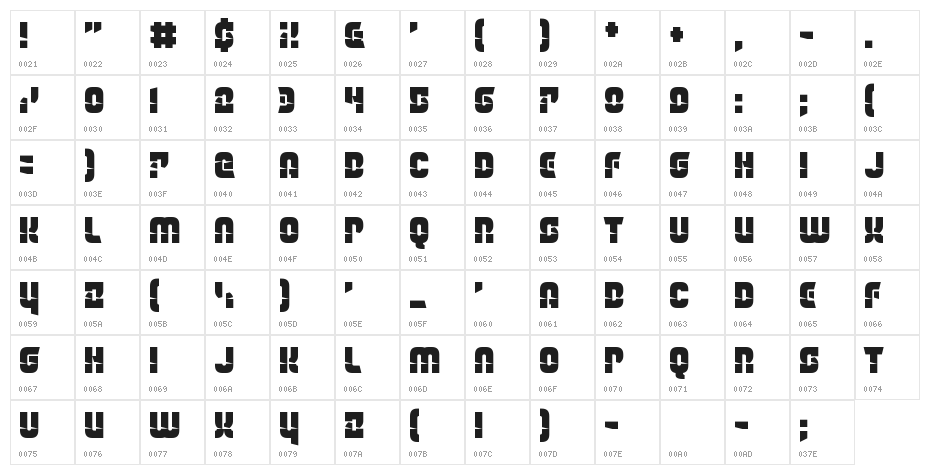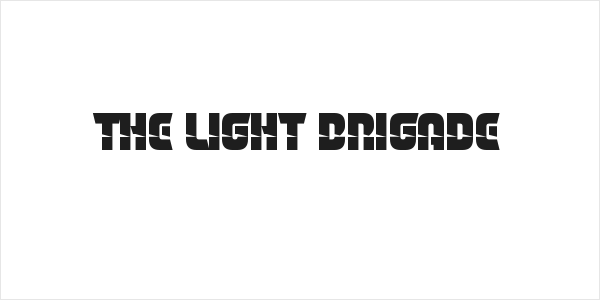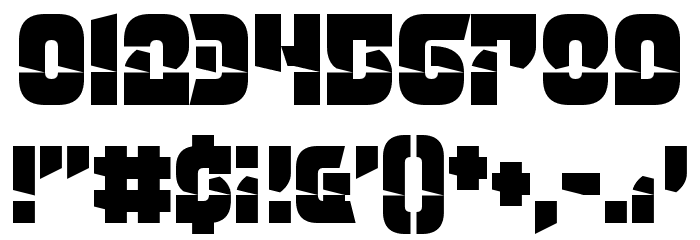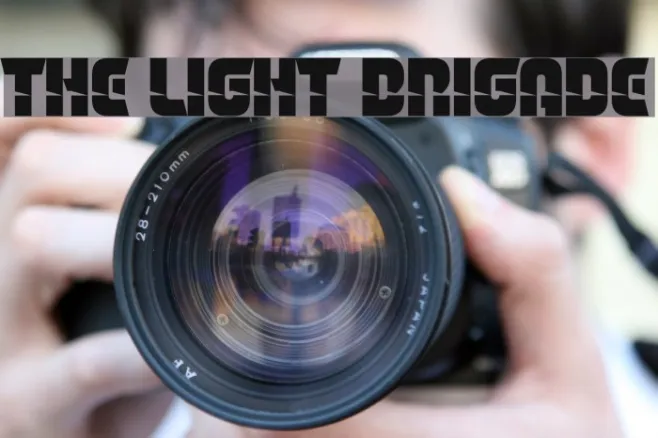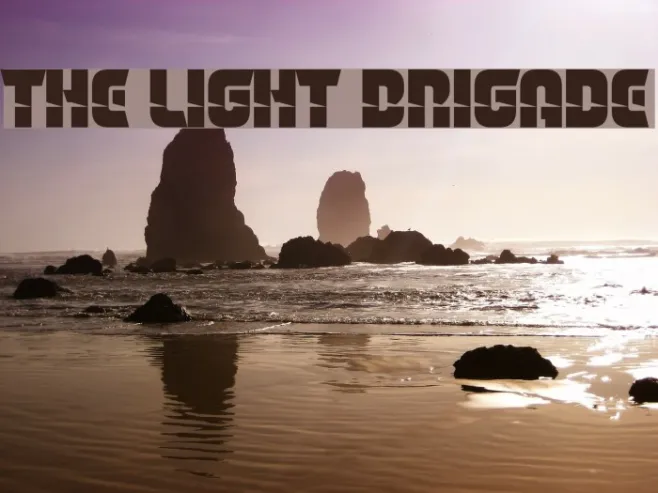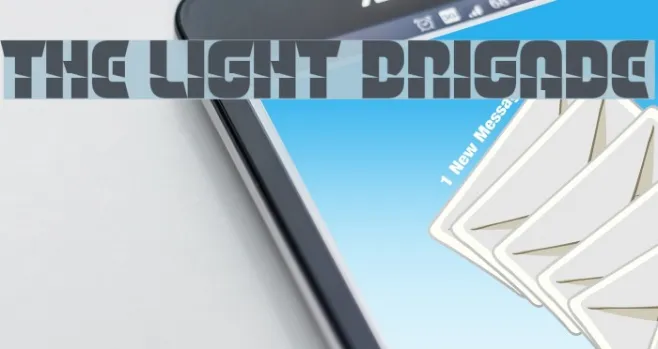
The Light Brigade Font
The Light Brigade Description
This font features a bold, geometric design with a distinct, futuristic aesthetic. Each character is composed of solid, block-like shapes that are segmented by a diagonal cut, creating a dynamic and fragmented appearance. The uppercase letters are particularly striking, with their wide, imposing forms that demand attention. The numbers and special characters maintain this bold style, ensuring consistency across all glyphs. The font's unique style makes it ideal for projects that require a modern and edgy look.
| Proposed Projects | Ideal for sci-fi themed posters, modern branding, video game titles, and edgy graphic design projects. |